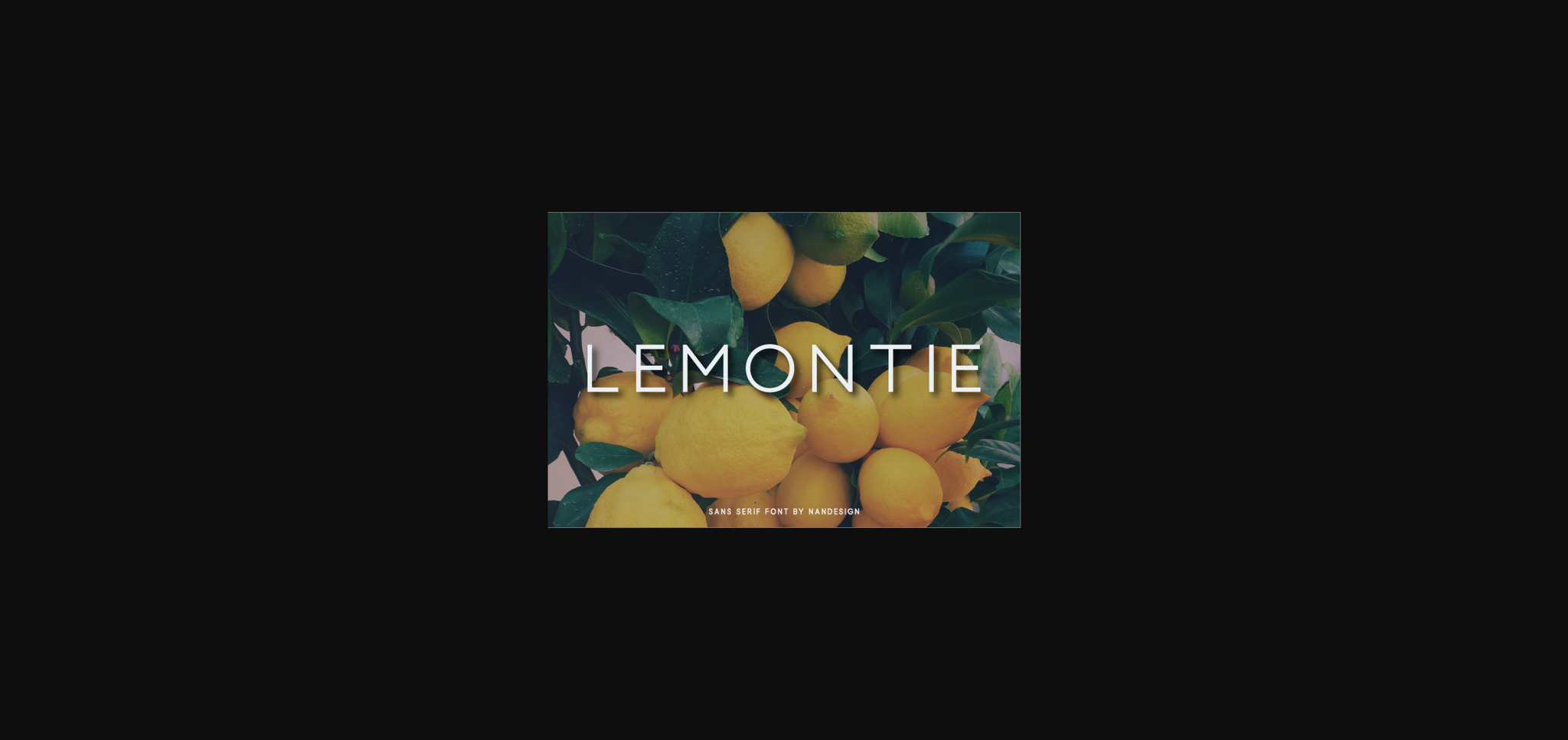
About Lemontie Font
Lemontie is a sans serif font with a beautiful and classy look. It will complement any design need perfectly with its perfectly balanced mix of the smooth and sharp!